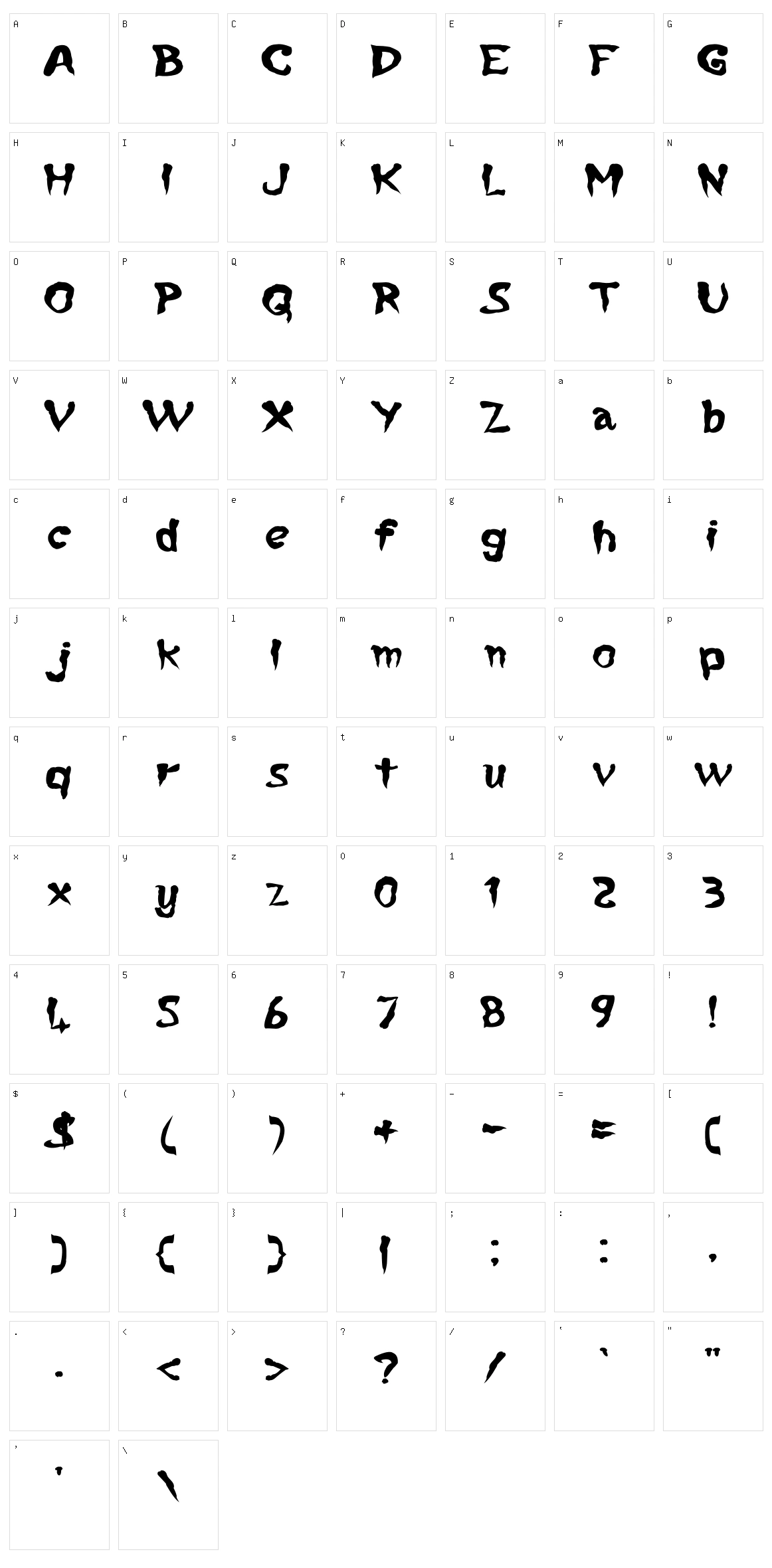
x NOTORIOUS FONT x
x CARY GRANT COLLECTION x x
Font name: NOTORIOUS FONT (Cary Grant Collection) - Latin Decorative font (versione 1.0)
Type designer: P. A. Vannucci
NOTORIOUS font: direttamente dal film diretto da Alfred Hitchcock,interpretato
da una indimenticabile Ingrid Bergman e da CARY GRANT,il font inedito per tutti gli estimatori
del film. Da notare il ritocco necessario in Photoshop per conferire, alla titolazione, l'originale bordatura.
NOTORIOUS font: directly from the Best movie by Alfred Hitchcock, with INGRID BERGMAN and CARY GRANT,
the original font for all lovers. Use ADOBE Photoshop for the original border from title.